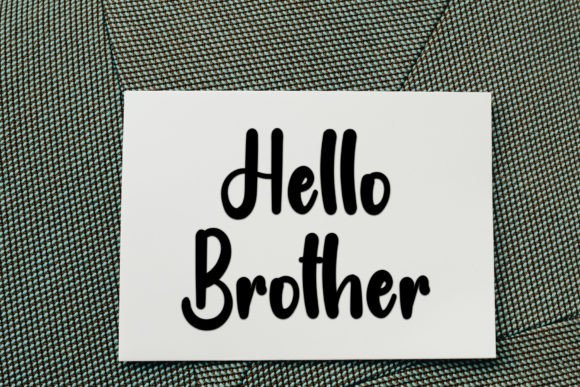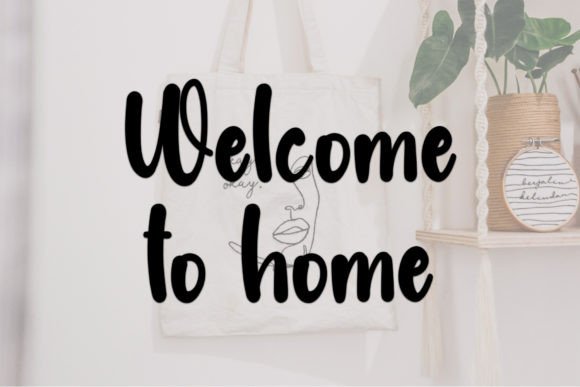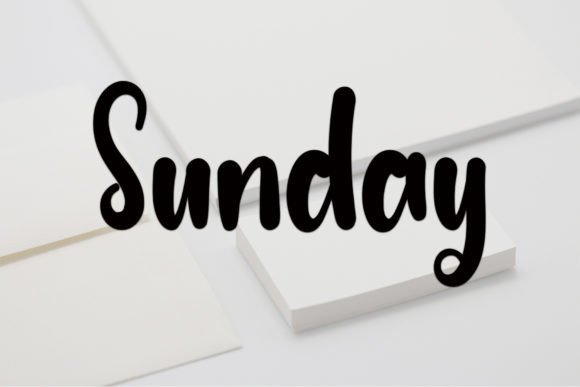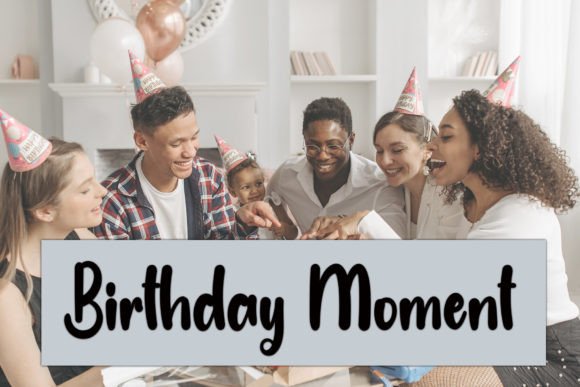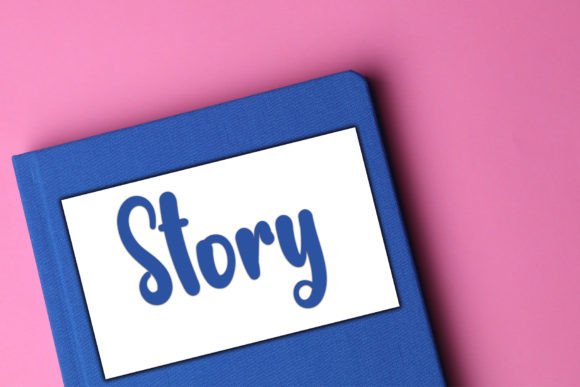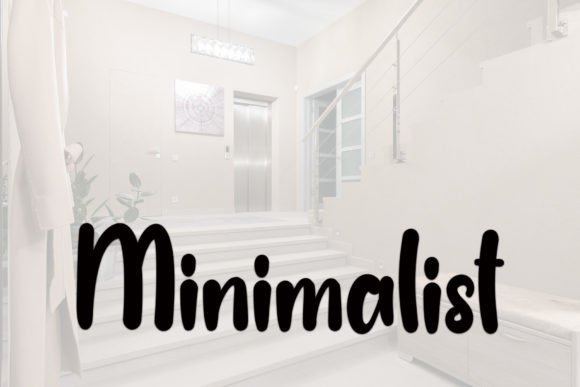
Baby Birthday Font: The Perfect Addition to Your Design Collection
Are you a designer or crafter looking for a unique and elegant font to add a personal touch to your projects? Look no further than the Baby Birthday font! This beautiful handwritten font is described by an elegant touch, making it perfect for a variety of designs, from baby-themed projects to wedding and birthday cards.
A Timeless and Distinct Style
The Baby Birthday font boasts an incredibly distinct and timeless style that is sure to capture the hearts of designers and crafters alike. Its elegant touch and beautiful handwritten curves make it a standout among other fonts, and its versatility ensures that it can be used in a wide range of projects. Whether you’re creating a custom onesie for a baby shower or designing a beautiful wedding invitation, this font is sure to add a touch of sophistication and elegance.
Perfect for Baby-Themed Projects
As the name suggests, the Baby Birthday font is perfect for baby-themed projects. Its sweet and delicate design makes it ideal for creating custom onesies, baby shower invitations, and birth announcements. But don’t limit yourself to just baby-themed projects – this font can be used in a variety of designs, from party invitations to greeting cards and more.
Key Features of the Baby Birthday Font
- Elegant and Beautiful Design: The Baby Birthday font features an elegant and beautiful handwritten design that is sure to add a touch of sophistication to your projects.
- Timeless Style: This font boasts a timeless style that will never go out of fashion, making it a great addition to your design collection.
- Versatile: The Baby Birthday font can be used in a wide range of projects, from baby-themed designs to wedding and birthday cards.
- Easy to Read: Despite its elegant design, the Baby Birthday font is easy to read, making it perfect for body text and headings.
Tips for Using the Baby Birthday Font
Here are a few tips for using the Baby Birthday font in your designs:
- Pair it with Other Fonts: The Baby Birthday font pairs well with other fonts, so don’t be afraid to experiment with different combinations to find the perfect look for your project.
- Use it for Headings and Titles: The Baby Birthday font is perfect for headings and titles, where its elegant design can really shine.
- Add a Personal Touch: Use the Baby Birthday font to add a personal touch to your designs, whether it’s a custom onesie or a handmade card.
Where to Use the Baby Birthday Font
The Baby Birthday font can be used in a wide range of projects, including:
- Baby Shower Invitations: Create custom baby shower invitations that are sure to impress with the Baby Birthday font.
- Birthday Cards: Use the Baby Birthday font to create beautiful and unique birthday cards for friends and family.
- Wedding Invitations: Add a touch of elegance to your wedding invitations with the Baby Birthday font.
- Custom Onesies: Create custom onesies for baby showers or as a special gift with the Baby Birthday font.
The Baby Birthday font is a beautiful and elegant addition to any design collection. Its timeless style and versatile design make it perfect for a wide range of projects, from baby-themed designs to wedding and birthday cards. Whether you’re a designer or crafter, this font is sure to inspire you to create spectacular designs that will leave a lasting impression.